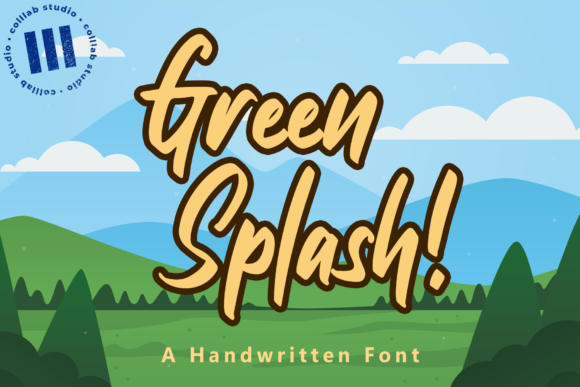
Unleash the Magic of Green Splash! Font - A Celebration of Individuality and Expression
In a world of monotonous fonts, Green Splash! emerges as a breath of fresh air, a font family that echoes the vibrancy of nature and the uniqueness of your creative vision. A display font at its core, Green Splash! is like a playful dance of letters, each stroke telling a story of individuality and imagination.
As you immerse yourself in the world of Green Splash!, you'll discover a symphony of styles that caters to your every creative whim. Whether it's the elegant curves of the script font or the bold, playful energy of the sans serif, Green Splash! is a font family that adapts seamlessly to your artistic endeavors.
Picture this: you're crafting a design for a bag, a vessel that carries not just belongings but also stories. With Green Splash!, your design becomes a canvas of self-expression. The font's energetic strokes add a touch of whimsy, inviting the curious to delve into the depths of your creativity.
Step into the realm of fashion and let Green Splash! be your trusted companion. Its elegant lines and flowing curves bring a touch of sophistication to your designs, capturing the essence of modern chic. Whether it's a flowy dress or a structured suit, Green Splash! adds an air of timeless grace, making your creations truly unforgettable.
Beyond the world of fashion, Green Splash! is a font family that knows no bounds. Its versatility extends to branding, packaging, and even social media graphics. With its ability to convey messages with clarity and impact, Green Splash! transforms your designs into powerful communication tools.
But Green Splash! is more than just a collection of letters. It's an invitation to embark on a creative journey, a journey where your imagination takes center stage. Its unique and versatile style empowers you to tell stories, evoke emotions, and leave a lasting impression wherever your designs may go.
So, dear creative soul, embrace the magic of Green Splash! Let its vibrant energy ignite your passion and watch as your designs blossom into masterpieces. Let Green Splash! be your font of choice, your creative companion, and your gateway to a world of infinite creative possibilities.